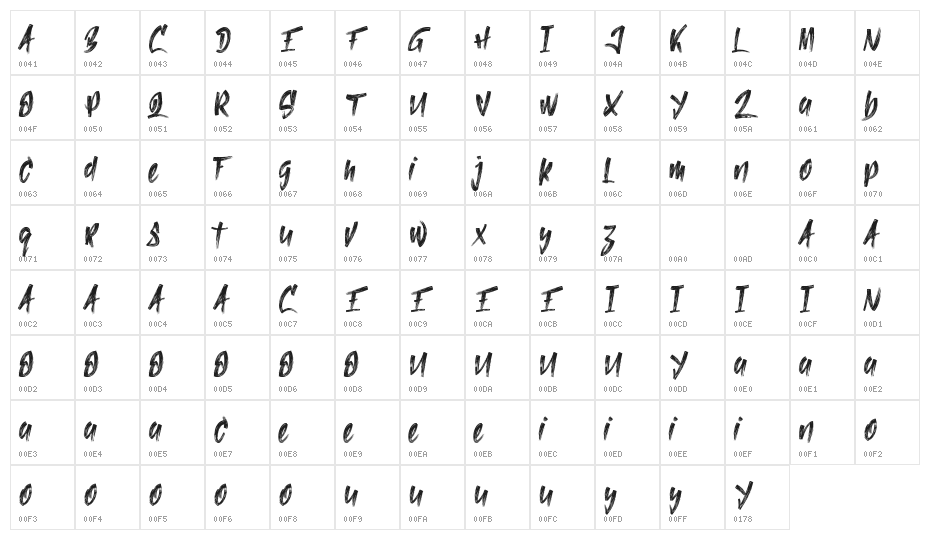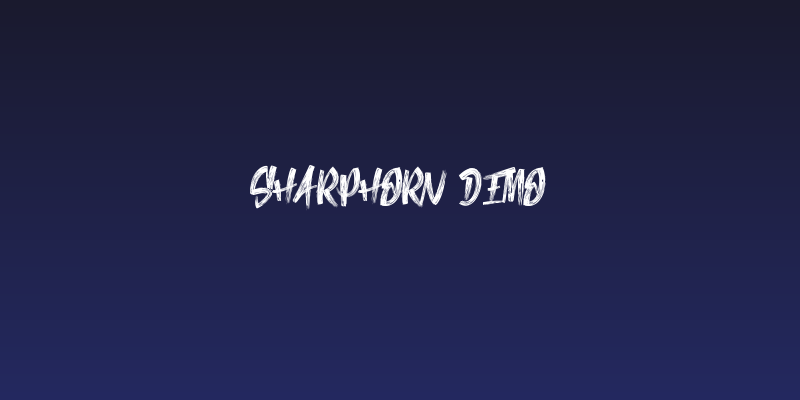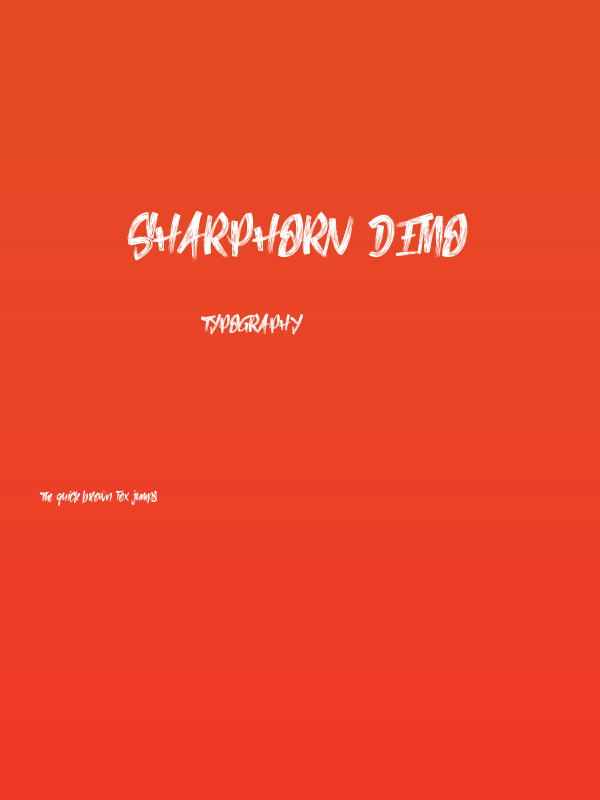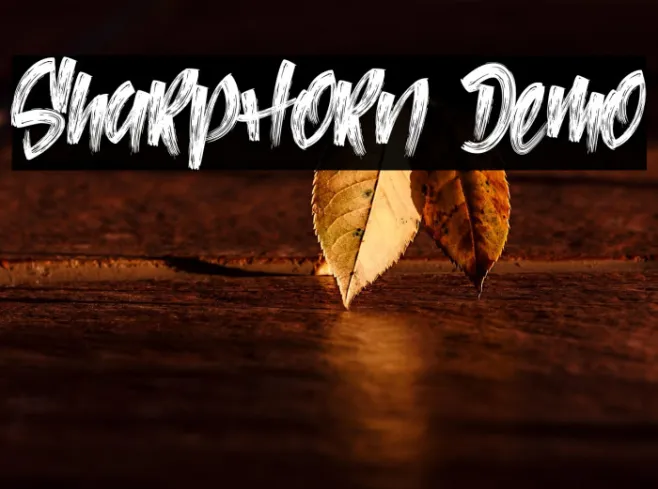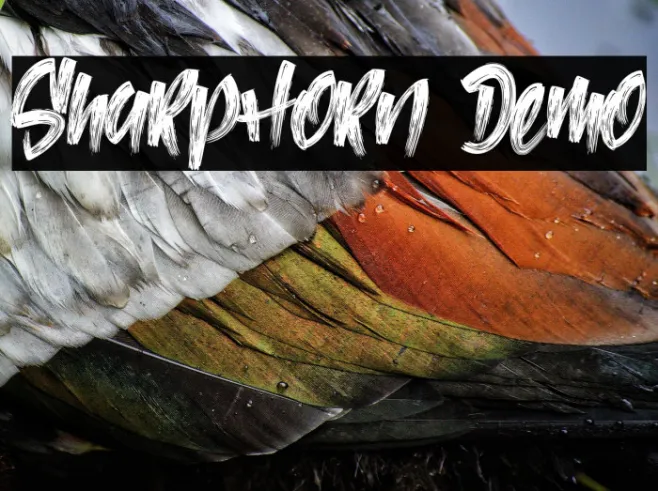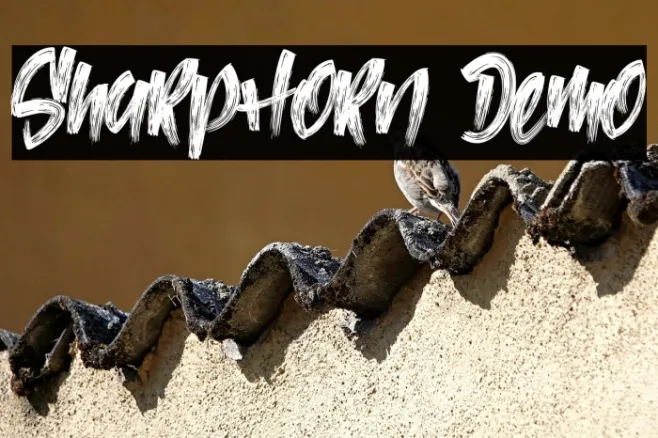
SharpHorn Demo Font
SharpHorn Demo Description
This font features a bold, expressive style with a brush-like texture that gives it a dynamic and energetic appearance. The strokes are irregular and varied, creating a sense of movement and spontaneity. The uppercase and lowercase letters maintain a consistent style, with sharp angles and a slightly aggressive flair. The font's unique character is further enhanced by its rough edges and uneven lines, making it ideal for projects that require a strong visual impact. The numbers and special characters follow the same design principles, ensuring a cohesive look across all elements.
| Proposed Projects | Ideal for music album covers, event posters, graffiti art, and any project needing a bold, artistic touch. |